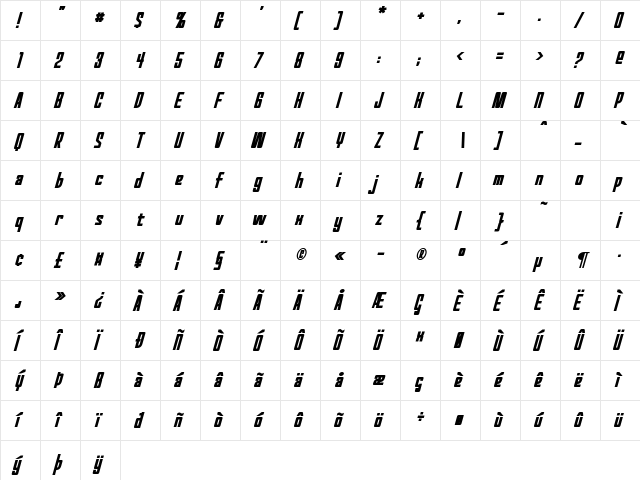
Red World Bold Italic
Design Context for Red World Typeface
Red World is a composed and adaptable typeface that performs quietly and consistently across a wide range of design contexts. Its italic angle brings a sense of urgency and motion to the letterforms. Its bold stroke weight gives it real presence on the page.
Pro Tip: Try Red World for annotation and caption copy alongside an upright companion — the contrast in angle creates a dynamic but ordered typographic system.